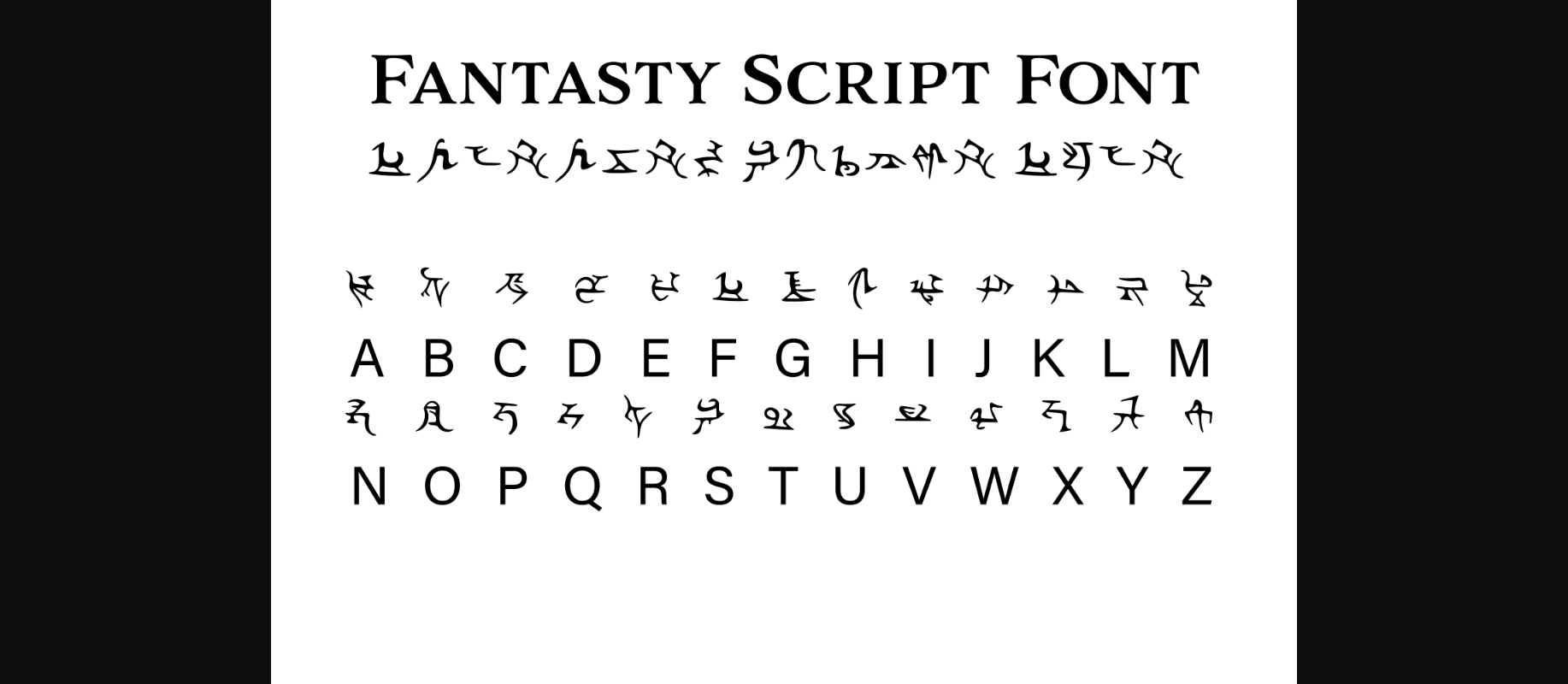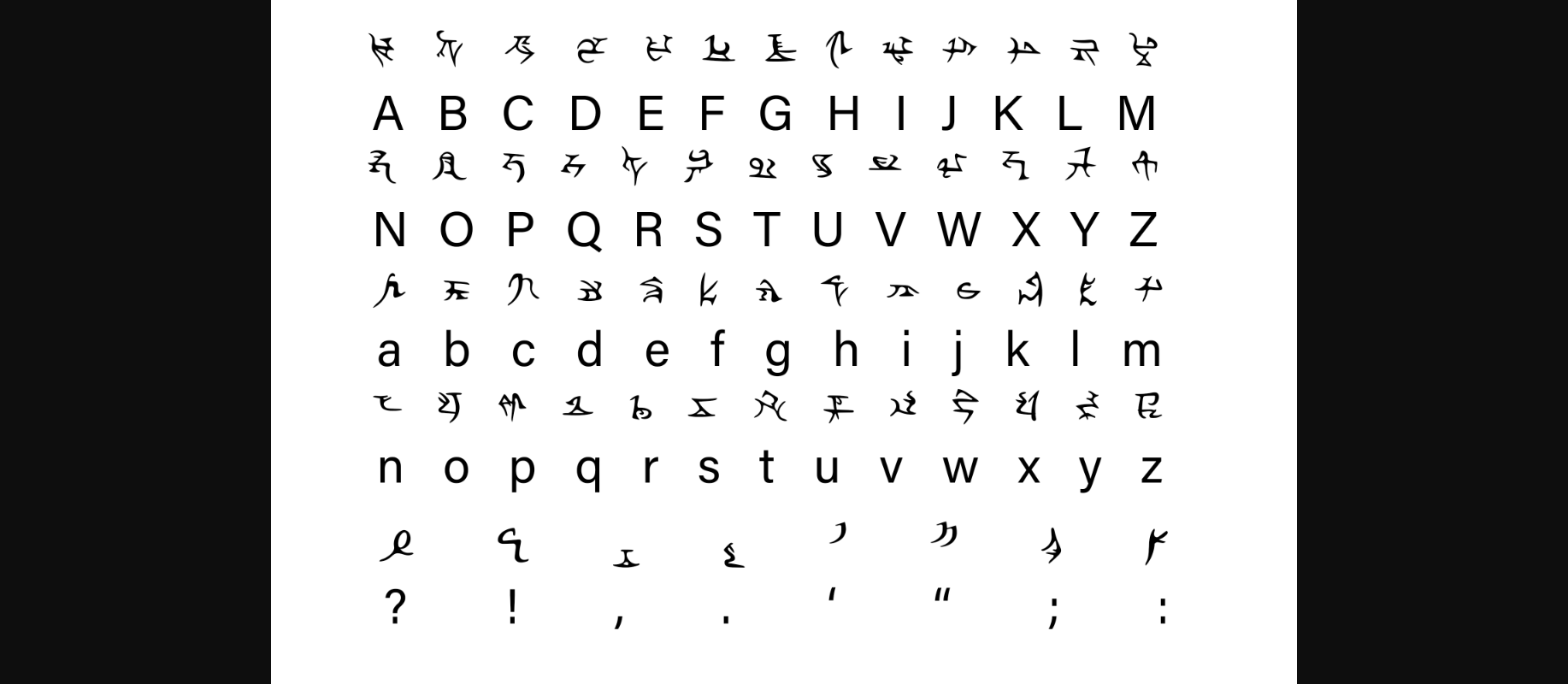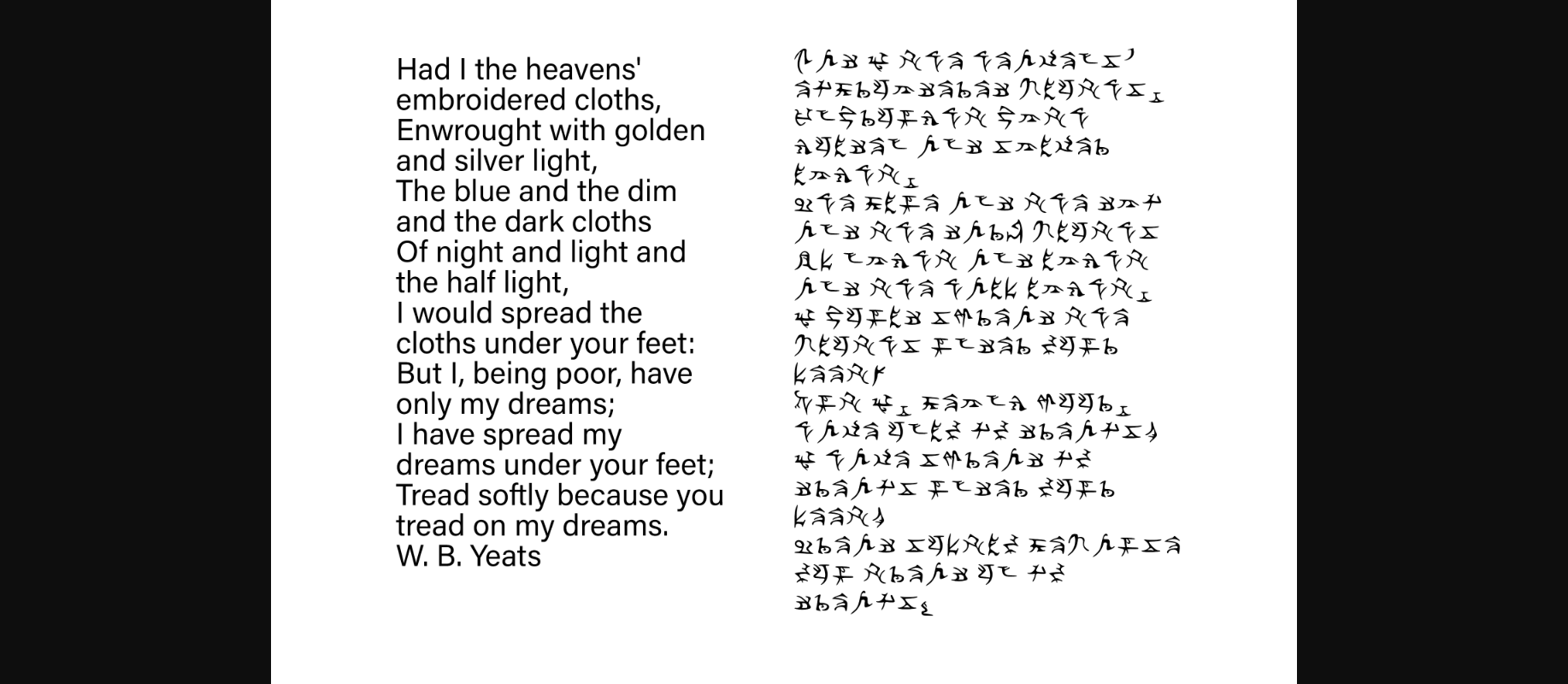
HomeDecorative FontsFantasy Script 2 Font Decorative Fonts Fantasy Script 2 Font FacebookXPinterestWhatsApp 1 of 5 ... Fantasy Script 2 Font Poster 2... Fantasy Script 2 Font Poster 3... Fantasy Script 2 Font Poster 4... Fantasy Script 2 Font Poster 5... About Fantasy Script 2 Font Fantasy is perfect for your next Dungeons and Dragons campaign, fantasy LARP adventure, novel, or whatever else you’re working on! This font includes the standard English alphabet and basic punctuation. DOWNLOAD NOW People also explored Belleson Script Font Messy Mood Font Granada Font Arilyam Font Black Widow Font Palm Sugar Font Gladyss Font Kanghara Font Choegs Font 349 0 TagsFantasy Script 2 Font Previous articleFantasy Script 3 FontNext articleFantasy Script 1 Font LEAVE A REPLY Cancel reply Comment: Please enter your comment! Name:* Please enter your name here Email:* You have entered an incorrect email address! Please enter your email address here Website: Save my name, email, and website in this browser for the next time I comment. Personal Use Free Christmas Diary Personal Use Free Read more about this font BD Lofi Personal Use Free Read more about this font Clumed Personal Use Free Read more about this font BD Beans Personal Use Free Read more about this font BLOG Free vs Paid Fonts: Why Investing in Premium Fonts Is Worth It Free vs Paid Fonts: Why Premium Fonts Are Worth It in 2025 The debate of free vs paid fonts continues in the design world. While... Elegant Wedding Invitation Fonts – Handwritten & Script Fonts Best Fonts for T-Shirt Design – Top 2025 Picks Top 10 Handwritten Fonts That Elevate Your Designs